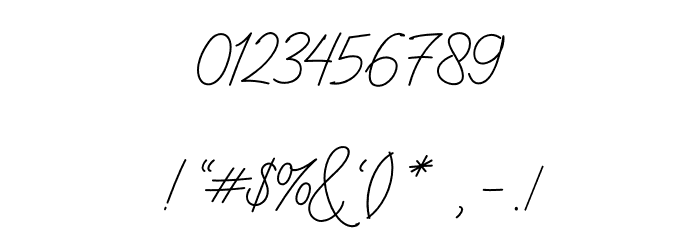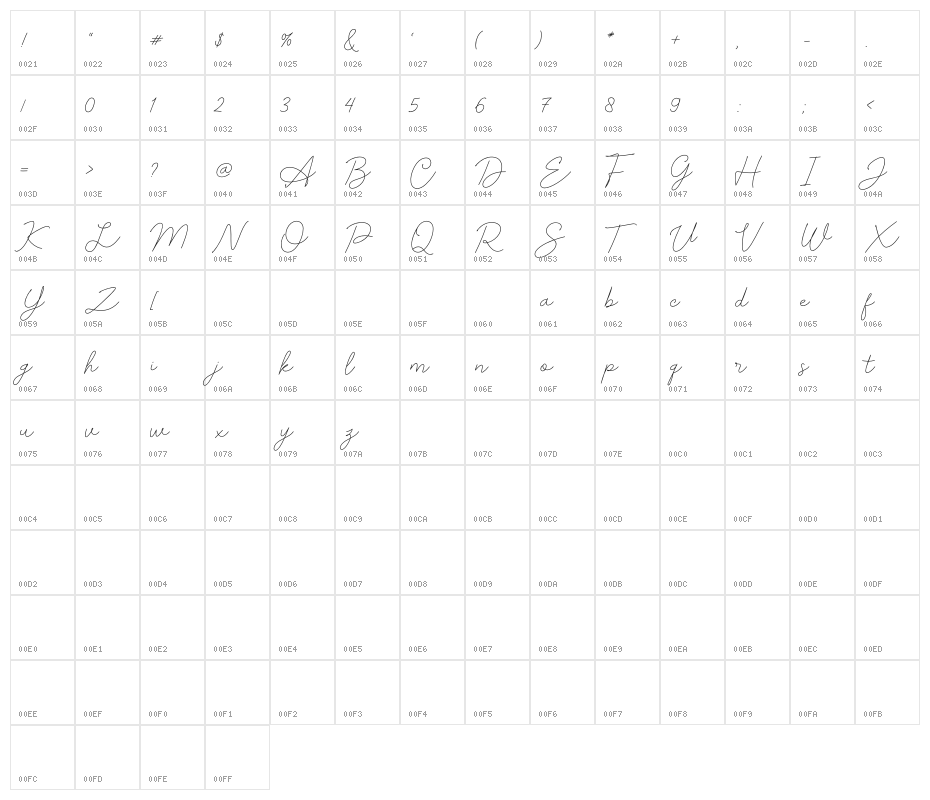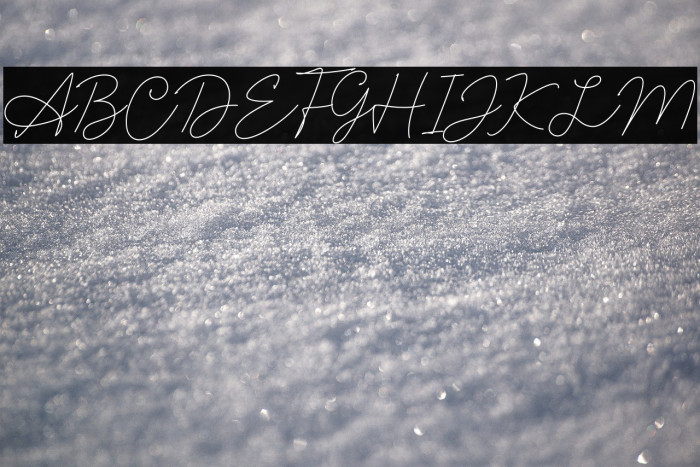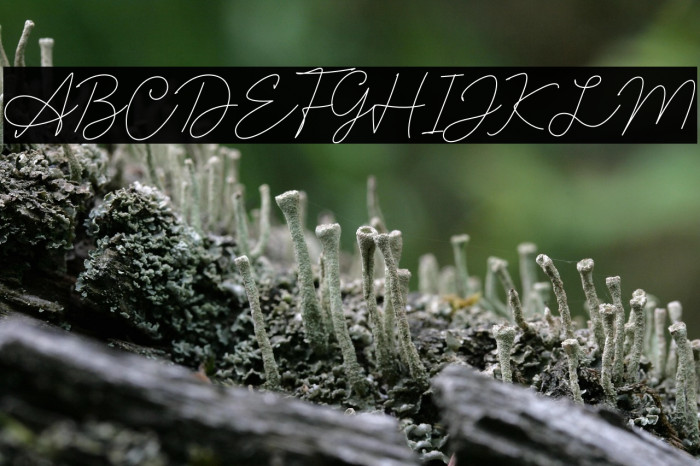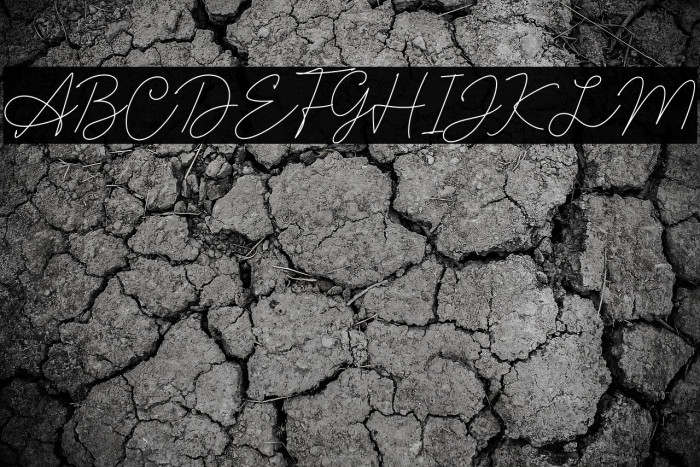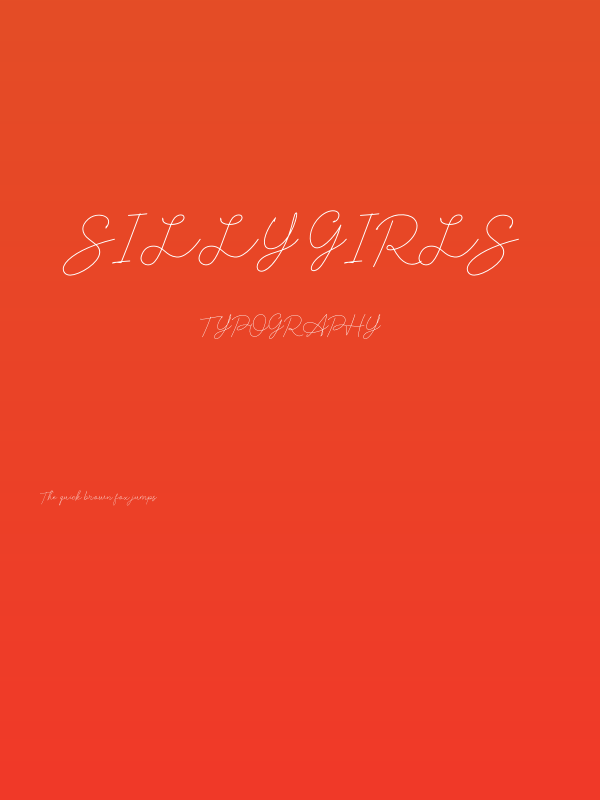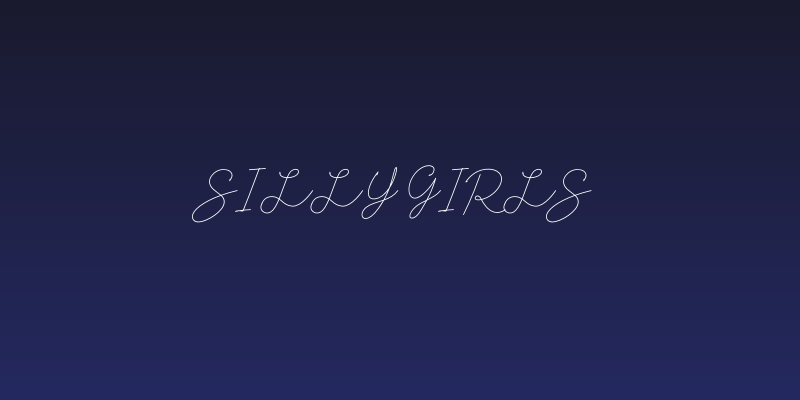
Silly Girls Font
Silly Girls Description
This elegant script font features a flowing, cursive style with smooth, connected strokes that mimic the fluidity of handwriting. The uppercase letters are slightly more elaborate, with graceful loops and swashes, while the lowercase letters maintain a consistent, flowing form. The numerals and special characters are designed to complement the overall aesthetic, adding a touch of sophistication. The font's delicate lines and airy feel make it suitable for projects that require a personal, elegant touch.
| Proposed Projects | Ideal for wedding invitations, greeting cards, personal branding, and elegant packaging designs. |